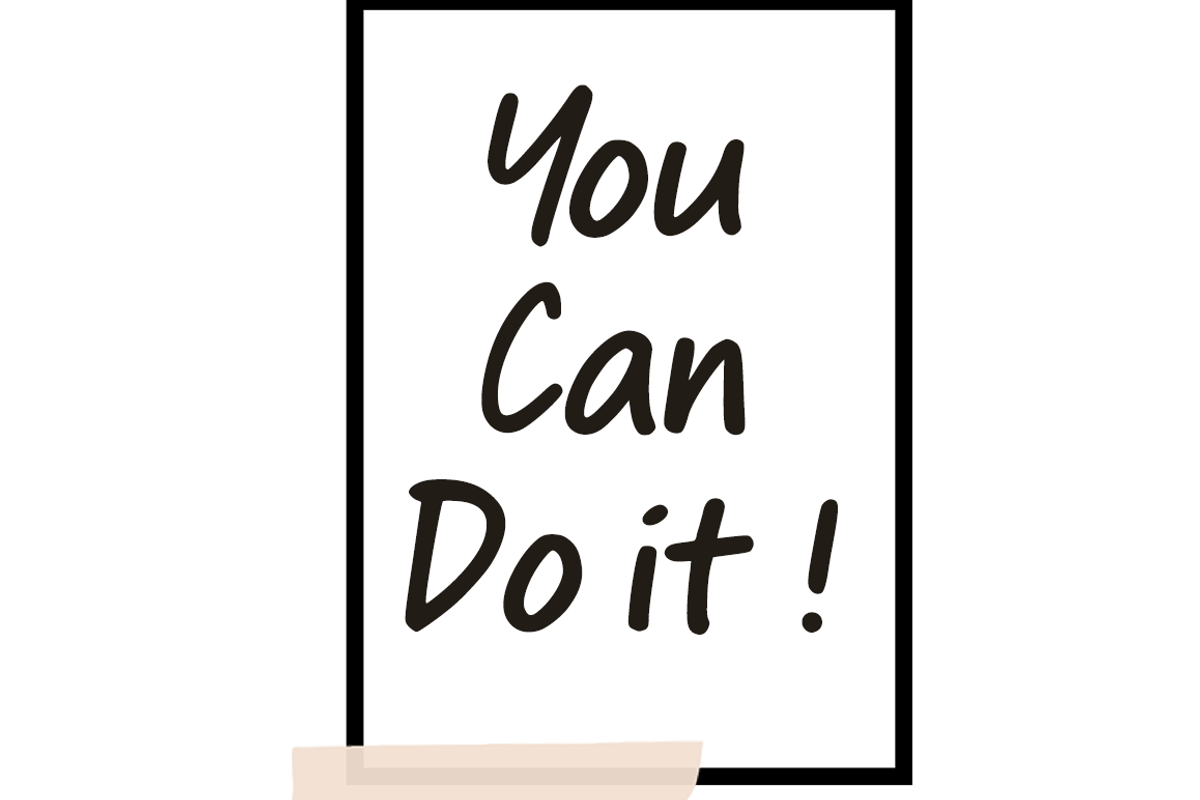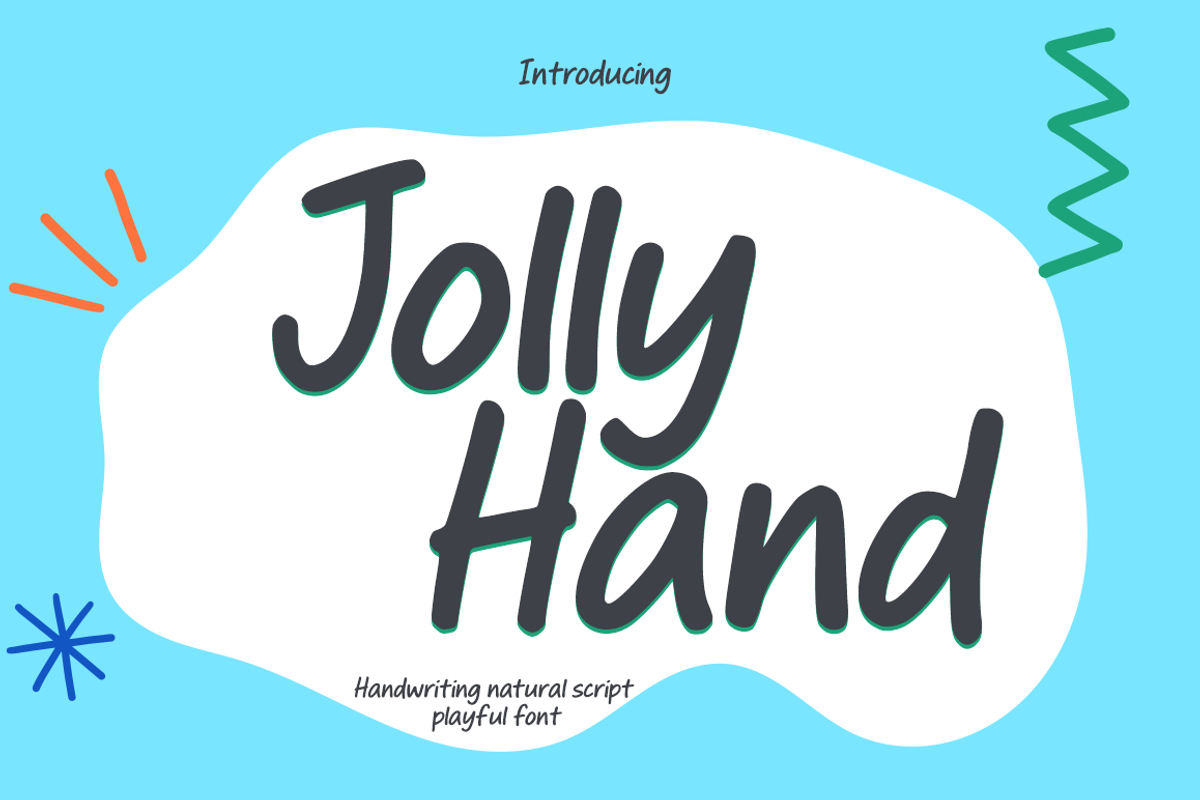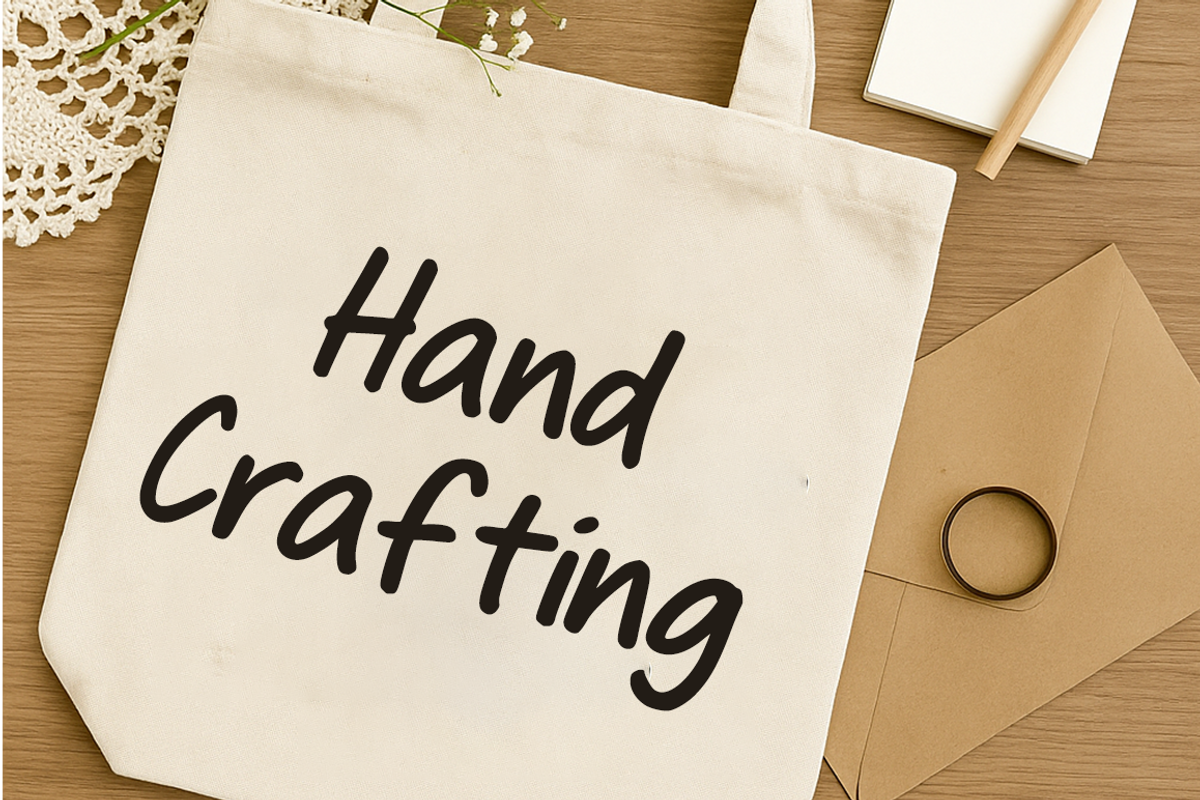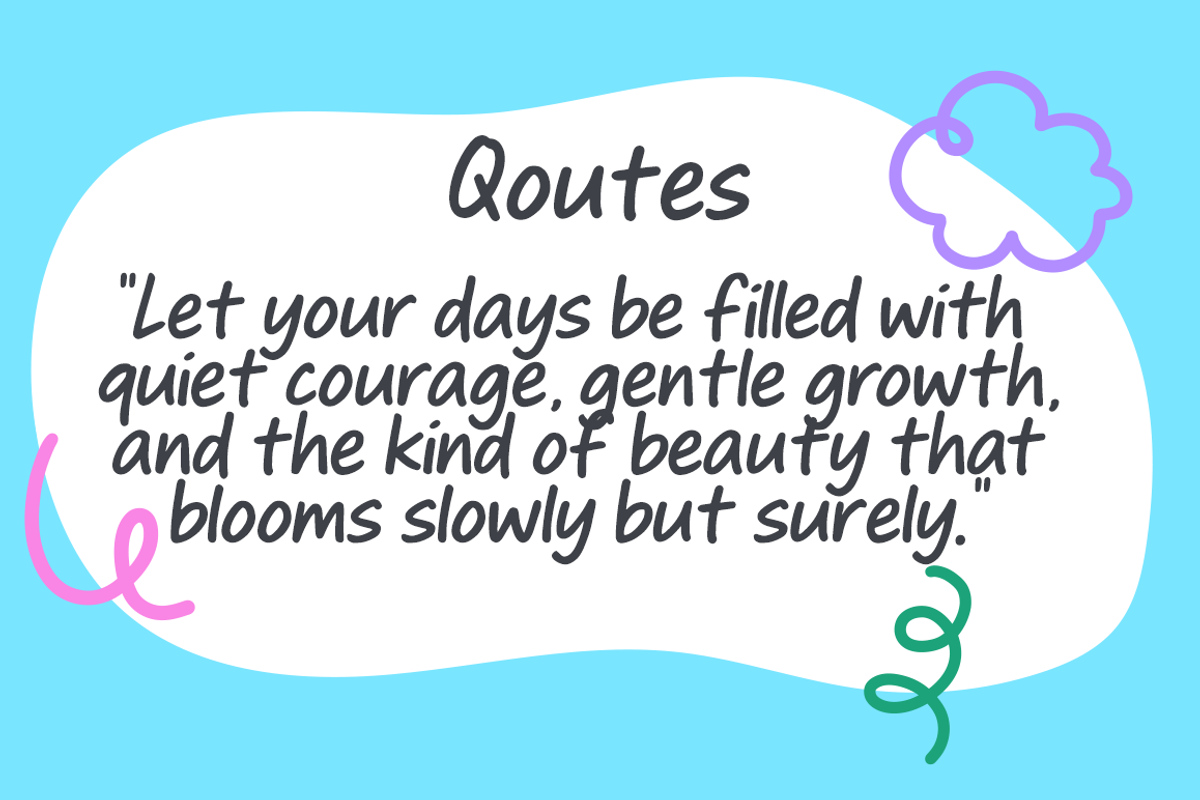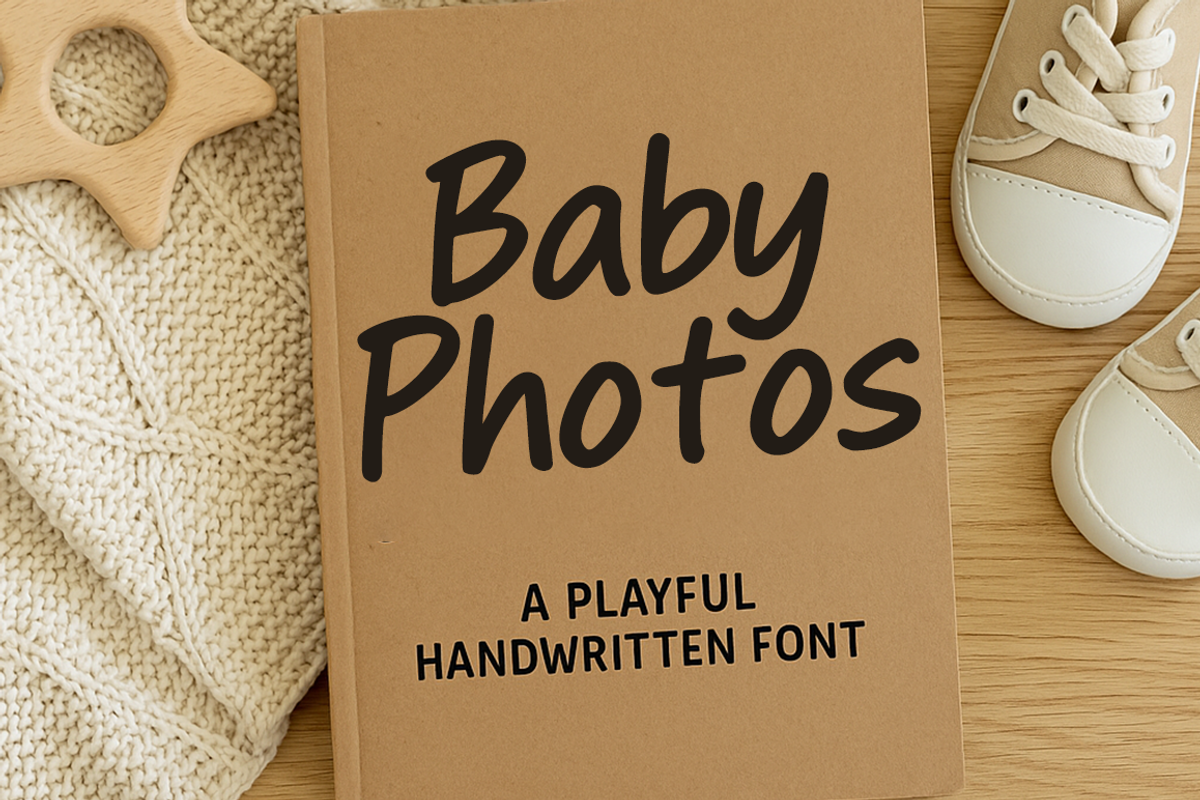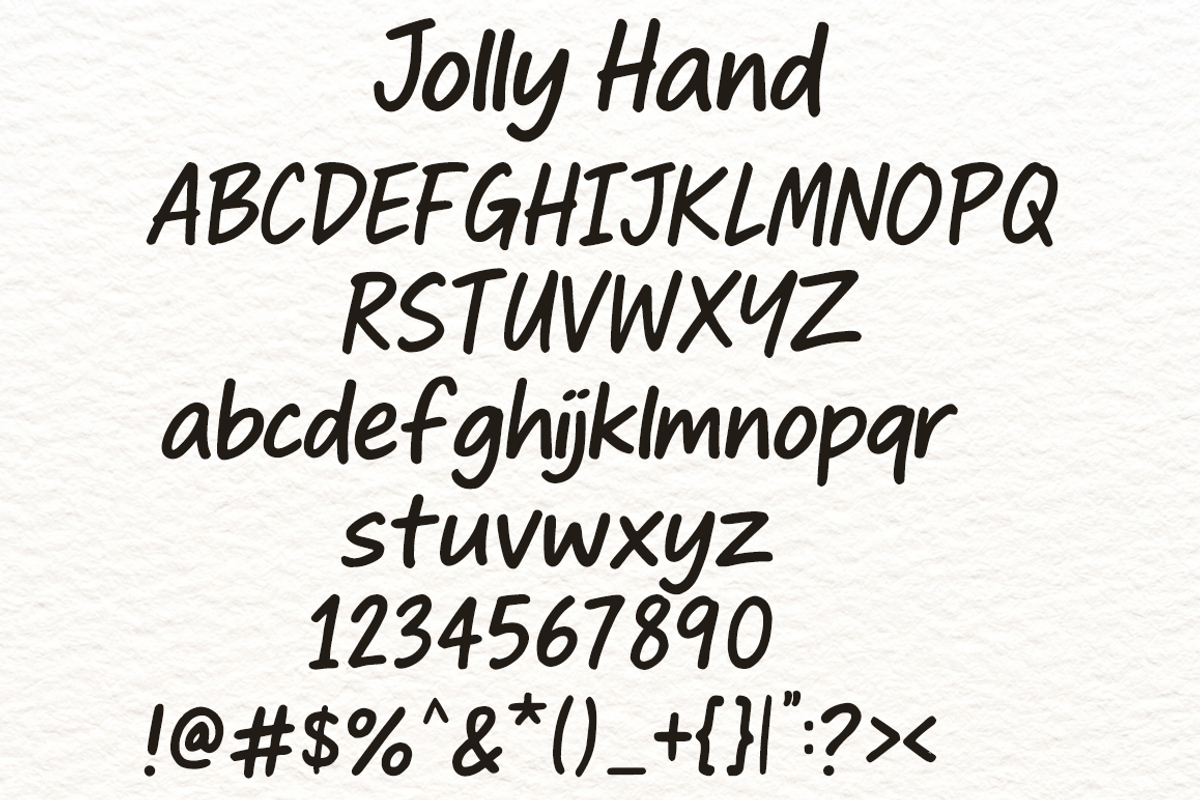
Jollyhand font
Jolly Hand – Playful Handwritten Script Font
Jolly Hand is a playful handwritten script font with a natural and casual brush style. Designed with bold, rounded strokes, it offers a cheerful and approachable look suitable for various creative applications.
Suitable for:
✔ Educational materials
✔ Product packaging
✔ Greeting cards and invitations
✔ Quotes and planner layouts
✔ Social media and promotional graphics
Its clean shape and dynamic flow make Jolly Hand a strong choice for projects requiring a fun and readable handwritten style.